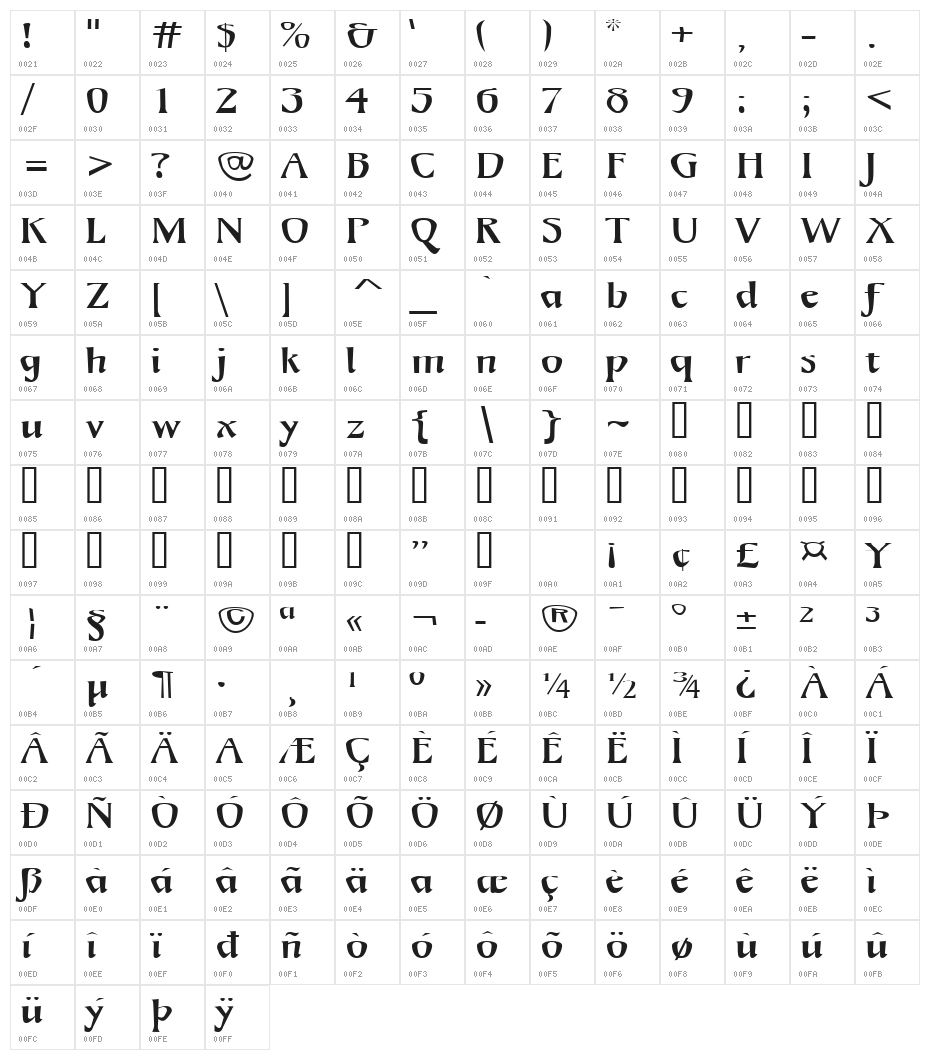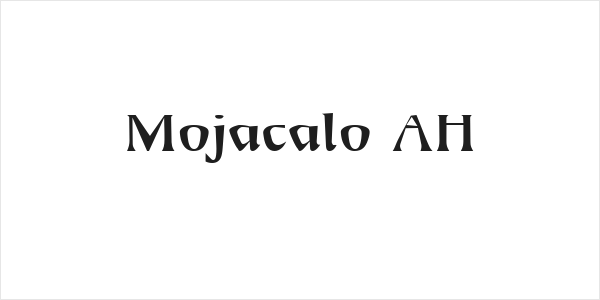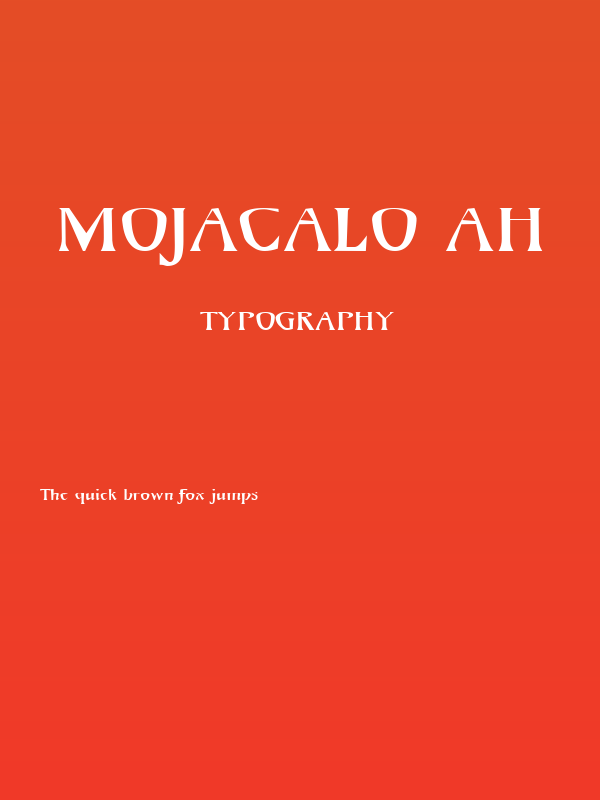
Mojacalo AH Font
Mojacalo AH Description
This font features a unique blend of modern and classic elements, characterized by its sharp, angular serifs and distinct stroke variations. The uppercase letters exhibit a strong presence with a slightly condensed form, while the lowercase letters maintain a consistent flow with a touch of elegance. Numbers are bold and clear, making them easily readable. Special characters are designed with a creative flair, adding to the font's overall decorative appeal. The combination of high contrast and moderate character spacing gives it a dynamic and eye-catching appearance, suitable for various design applications.
| Proposed Projects | This font is perfect for branding projects, logo design, headlines, and editorial layouts where a bold and sophisticated look is desired. |